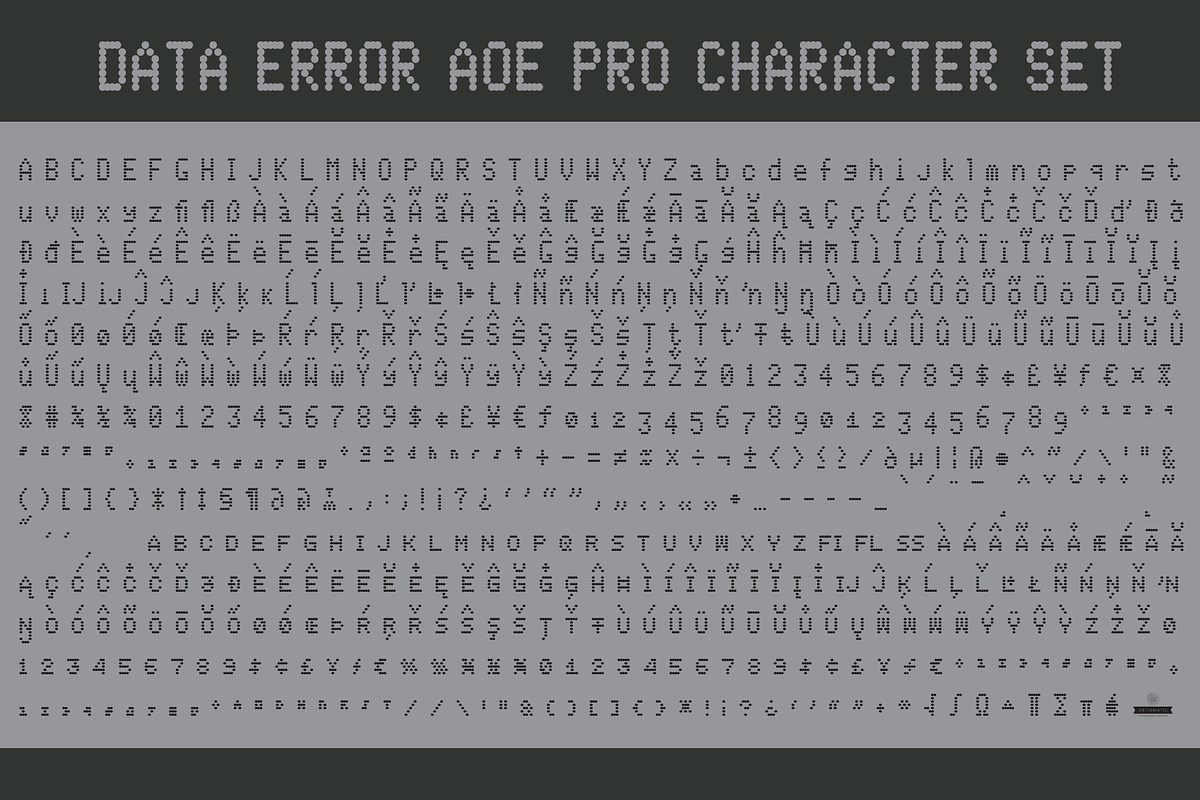
Data Error Pro Family
Inspired by some old printouts of BASIC programs and an Atari 1050 Disk Drive manual with pin printer examples, comes the familiar yet oddly restricted style with this Data Error family. This family comes complete with Regular and Bold versions with their respective Oblique versions. Odd pin printer restrictions inherent in this typeface are: no characters extend below baseline or above ascender line, (except international accents).
This Pro version is loaded with an extended feature set that includes Small Caps, superiors, inferiors, ordinals, & unlimited fractions.
A nostalgic typeface for computer programmers everywhere, strong and legible at any size, Data Error is perfect for so many purposes, get it today! An old school dot matrix look for a steal of a price.